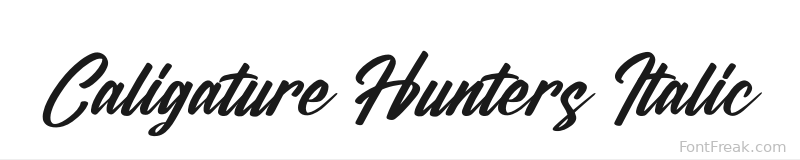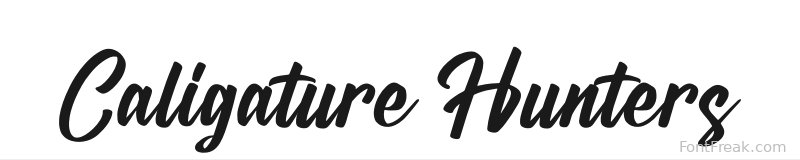
Caligature Hunters Italic
Caligature Hunters
Caligature Hunters Italic by Perspectype Studio is a stunning script font that captures the essence of elegant calligraphy with a modern twist. Its graceful curves and sweeping strokes create a visually appealing aesthetic, making it an excellent choice for a variety of design projects. The font features a medium stroke weight with subtle contrast, enhancing its legibility while maintaining a sophisticated flair. The spacing between characters is well-balanced, allowing for easy readability without compromising style. Decorative elements such as flourishes and ligatures add an artistic touch, making it ideal for creative applications.
This versatile font is perfect for wedding invitations, where its romantic style can set the perfect tone for special occasions. It also shines in branding projects, particularly for boutique shops or artisanal businesses looking to convey a sense of craftsmanship and quality. Additionally, Caligature Hunters Italic can elevate restaurant menus, giving them a refined and inviting look, while also being suitable for event flyers and promotional materials that require a touch of elegance and creativity.
The target audience for this font includes graphic designers, small business owners, and content creators who seek to enhance their visual communication with a distinctive and stylish typeface. Whether used in print or digital formats, this font allows creators to express their artistic vision and connect with their audience effectively.
What sets Caligature Hunters Italic apart is its perfect blend of classic elegance and contemporary design. Its unique characteristics make it not just a font, but a statement piece in any project. With the Caligature Hunters Italic font free download, you can easily incorporate this exquisite typeface into your next creative endeavor, ensuring your designs stand out with sophistication and charm.